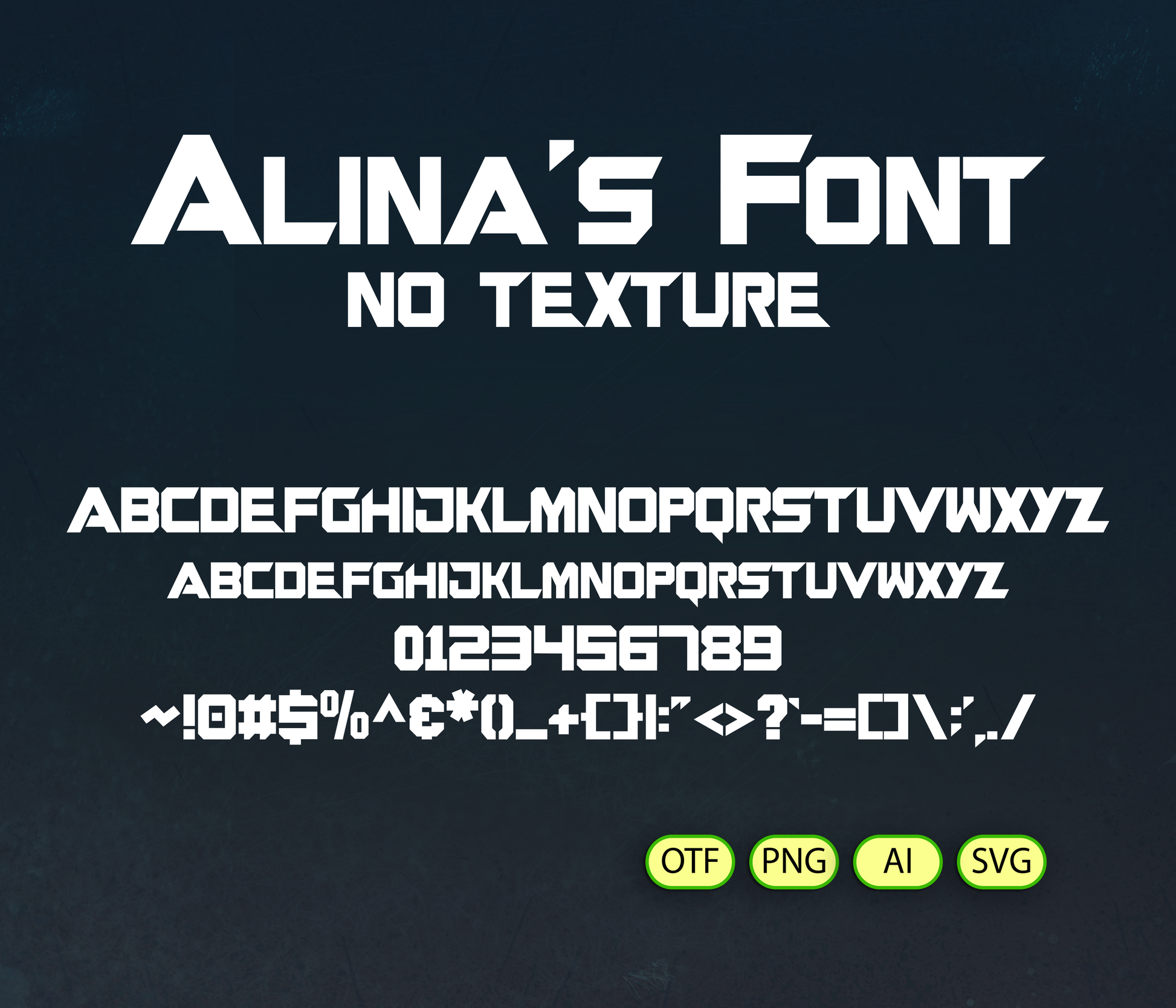
Cosmic Rebel Squad Retro Font
Cosmic Rebel Squad Retro Space Style
Blast off into the adventurous universe of space outlaws and intergalactic misfits with our Cosmic Rebel Squad Retro Space font, capturing the essence of rogue space adventures and vintage sci-fi heroics. Perfect for space adventure creators, retro cosmic designers, outlaw storytellers, and creative professionals, this font delivers the rebelliously heroic yet nostalgically adventurous, galactically spirited atmosphere of space rogue tales to your projects. Craft stellar invitations, cosmic adventure merchandise, or digital content with the defiantly heroic, retro-futuristic energy of space outlaw stories.
Our Cosmic Rebel Squad Retro Space font features bold, space-age letterforms and rebelliously cosmic characters reflecting the adventurously defiant yet nostalgic aesthetic of intergalactic outlaw scenarios. Ideal for:
- Space Adventure Events: Design stellar invites, posters, and banners for cosmic-themed parties, space rebel experiences, and intergalactic adventure gatherings
- Retro Cosmic Design: Perfect for book covers, space promotions, and rebel-themed accessories that capture outlaw space essence
- Digital Media: Enhance websites, blogs, and social media with cosmic headers and graphics that express rebellious adventure and space-age nostalgia
- Entertainment Content: Add authentic character to space adventure materials, cosmic rebel designs, and promotional materials for stellar events
- Personal Projects: Bring galactic appeal to scrapbooking, DIY crafts, and home decor inspired by the aesthetics of cosmic outlaw adventures